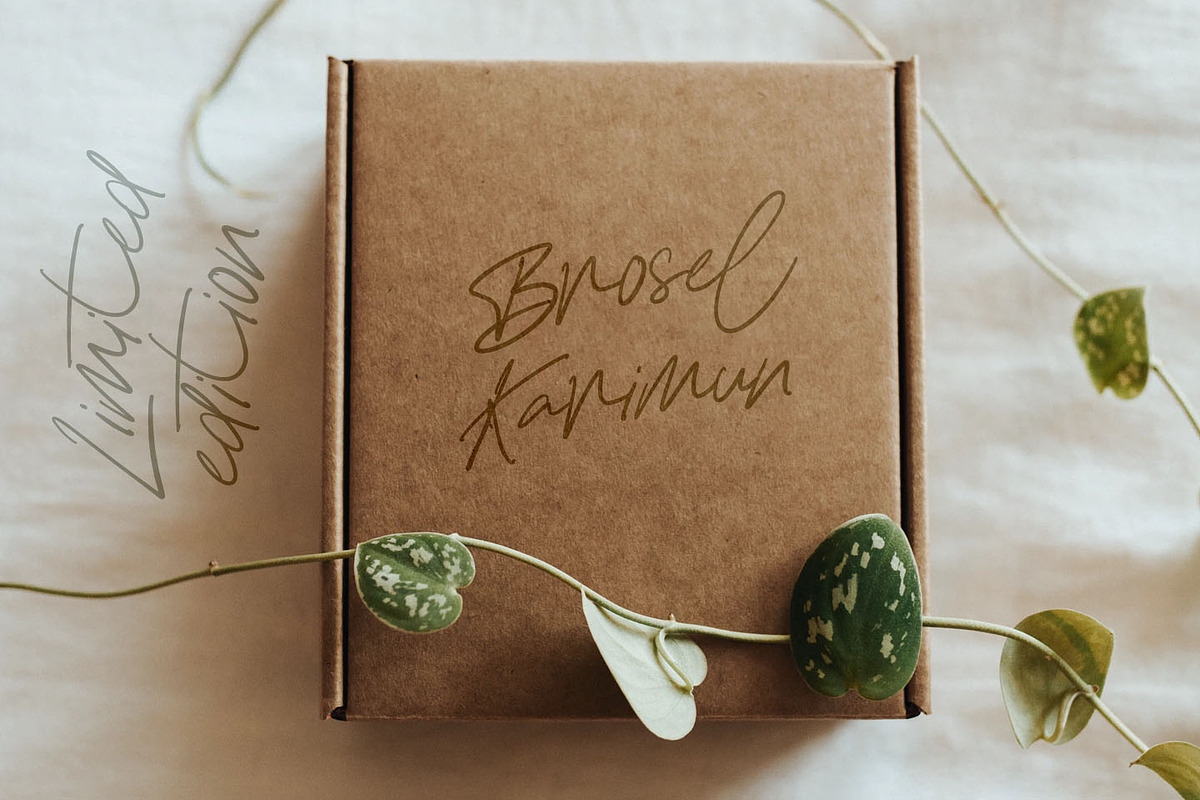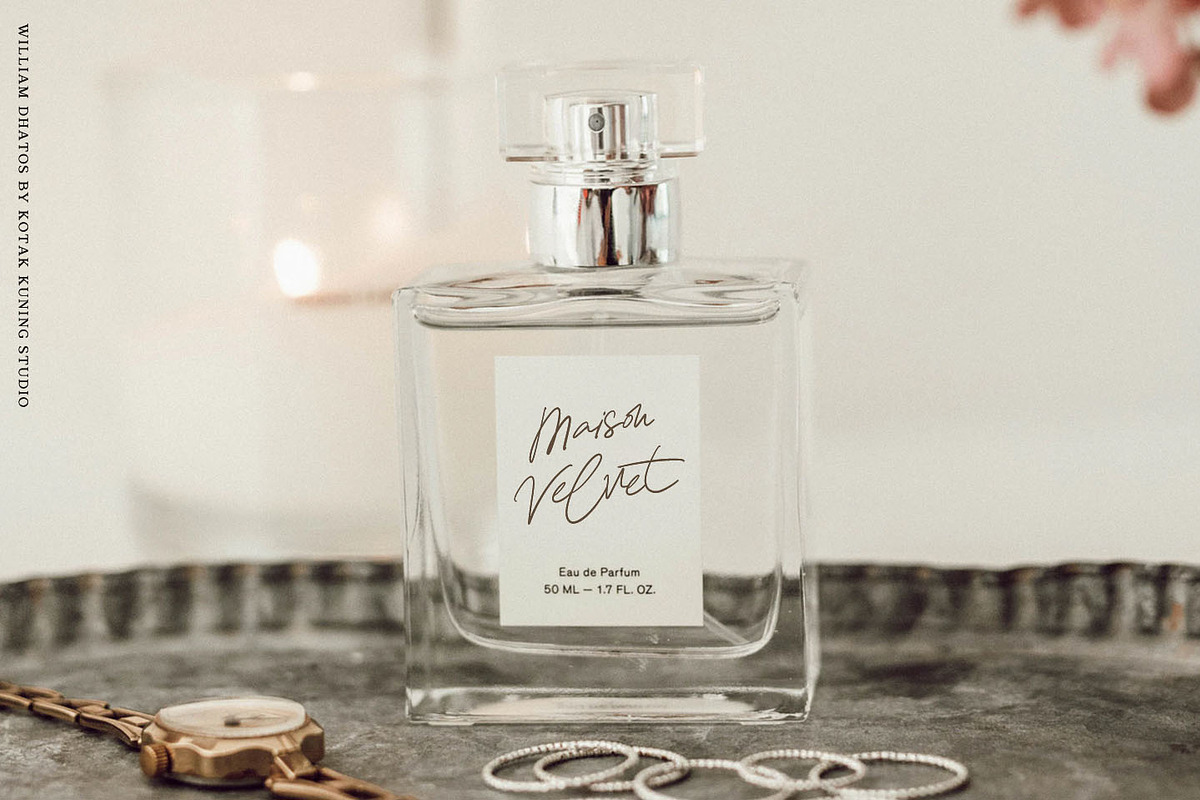
William Dhatos - Stylish Handwritten
William Dhatos is a handwritten signature script with a natural & stylish flow. This font has a multitude of natural-looking ligatures in its OpenType features - making the font look as close to natural handwriting as possible. This collection of scripts is perfect for personal branding.
William Dhatos Font is perfect for many different projects such as logos & branding, invitation, stationery, wedding designs, social media posts, advertisements, product packaging, product designs, label, photography, watermark, special events or anything.
- William Dhatos includes capital and lowercase letters, alternates, and Ligatures
- Numbers + punctuation
- Foreign language support